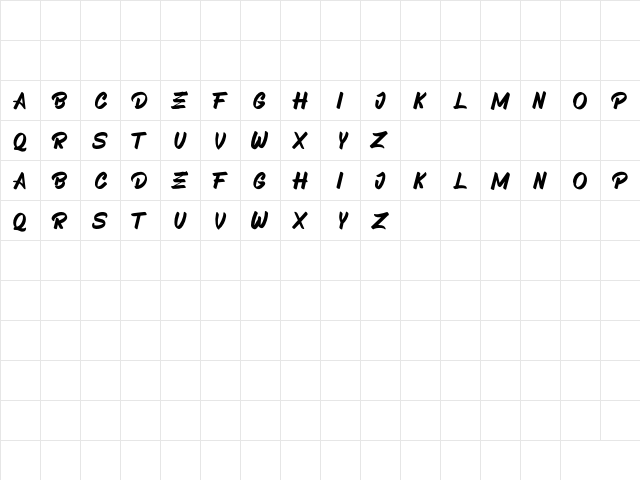
BIGGER SCAPE Demo Regular
| Designer | Fuad Hasan |
Design Context for BIGGER SCAPE Demo Typeface
BIGGER SCAPE Demo is a composed and adaptable typeface that performs quietly and consistently across a wide range of design contexts.